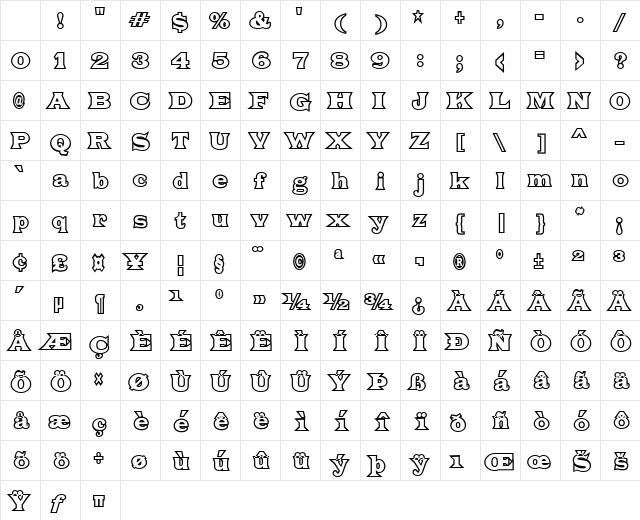
Fat Legs Outline Semi-expanded Heavy
Style: Semi-expanded Heavy
Designer: George Herbert Hirst and Wilfred Rhodes
Design Context for Fat Legs Outline
Fat Legs Outline is built around its visual character rather than neutral utility - its distinctive forms are designed to make an impression at display sizes.
Font Pairing: Pair with a clean neutral sans-serif for body copy to let Fat Legs Outline's character lead without overwhelming the composition.
Pro Tip: Use Fat Legs Outline exclusively at display sizes - it was designed to be seen, not read at length. Let a neutral companion handle body copy.